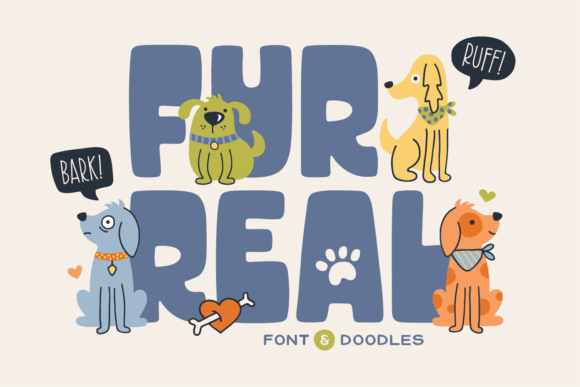
Introducing Fur Real Font: The Ultimate Adorable Hand-Drawn Font and Doodle Set
Are you looking for a font that can add a touch of cuteness and playfulness to your designs? Look no further than Fur Real Font, a hand-drawn font and doodle set that is sure to delight. This charming font and doodle set is perfect for designers, crafty enthusiasts, and anyone looking to add a personal touch to their projects.
What is Fur Real Font?
Fur Real Font is an absolutely adorable hand-drawn font and doodle set that features a bold, curvy, all-caps font paired with charming dog-themed doodles. The font is designed to be highly versatile and can be used for a wide range of projects, from crafting and scrapbooking to digital design and branding.
Key Features of Fur Real Font
- Hand-drawn font and doodle set: Fur Real Font is a unique and original hand-drawn font and doodle set that is sure to add a personal touch to your designs.
- Bold, curvy, all-caps font: The font is bold, curvy, and all-caps, making it perfect for headlines, titles, and other design elements.
- Dog-themed doodles: The doodle set includes a range of charming dog-themed illustrations that can be used to add a touch of whimsy to your designs.
- Color-svg version: A color-svg version of the font is included, making it easy to use in programs that support color fonts.
- Individual elements: All of the elements are included individually, making it easy to use them in programs that do not support color fonts.
Uses for Fur Real Font
Fur Real Font is a highly versatile font and doodle set that can be used for a wide range of projects, including:
- Crafting and scrapbooking: The font and doodle set are perfect for adding a personal touch to scrapbook pages, cards, and other craft projects.
- Digital design: The font and doodle set can be used to create a wide range of digital designs, from social media graphics to blog posts and website headers.
- Branding: The font and doodle set can be used to create custom branding elements, such as logos, business cards, and letterheads.
- Party decorations: The font and doodle set can be used to create custom party decorations, such as banners, garlands, and cupcake toppers.
Benefits of Using Fur Real Font
There are many benefits to using Fur Real Font, including:
- Unique and original: Fur Real Font is a unique and original font and doodle set that will help your designs stand out from the crowd.
- Easy to use: The font and doodle set are easy to use and can be imported into a wide range of design programs.
- Highly versatile: The font and doodle set can be used for a wide range of projects, from crafting and scrapbooking to digital design and branding.
- Time-saving: The font and doodle set can save you time and effort by providing a range of pre-made design elements that can be used in your projects.
Tips for Using Fur Real Font
Here are a few tips for using Fur Real Font:
- Experiment with different colors: The color-svg version of the font allows you to experiment with different colors and combinations to find the perfect look for your design.
- Mix and match doodles: The doodle set includes a range of individual elements that can be mixed and matched to create unique and interesting designs.
- Use in combination with other fonts: Fur Real Font can be used in combination with other fonts to create a wide range of different effects and styles.
Fur Real Font is a unique and original hand-drawn font and doodle set that is sure to add a touch of cuteness and playfulness to your designs. With its bold, curvy, all-caps font and charming dog-themed doodles, this font and doodle set is perfect for designers, crafty enthusiasts, and anyone looking to add a personal touch to their projects.